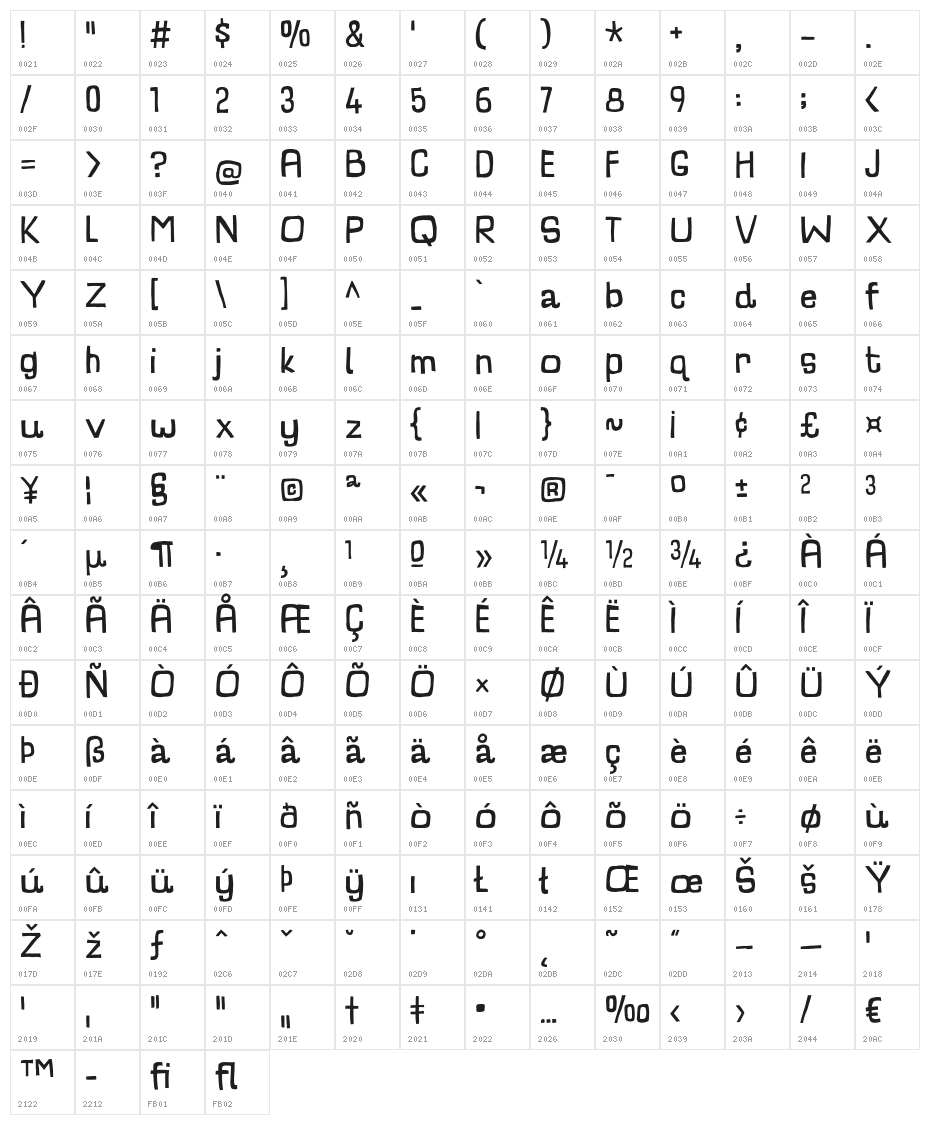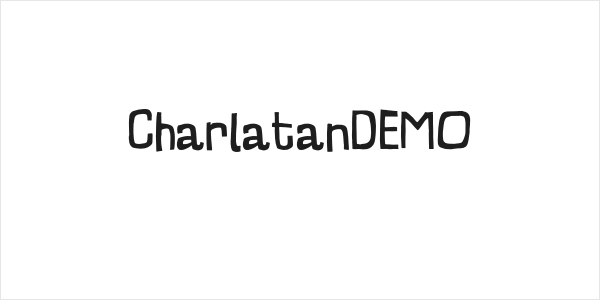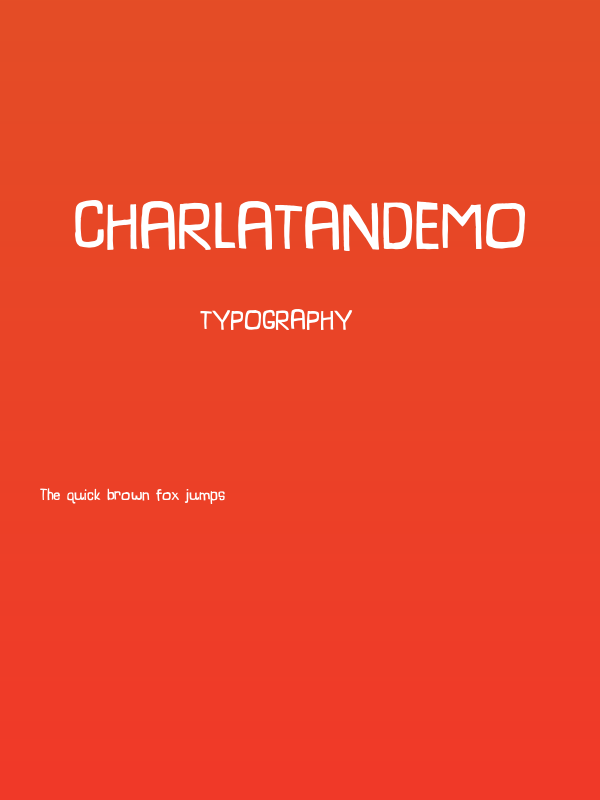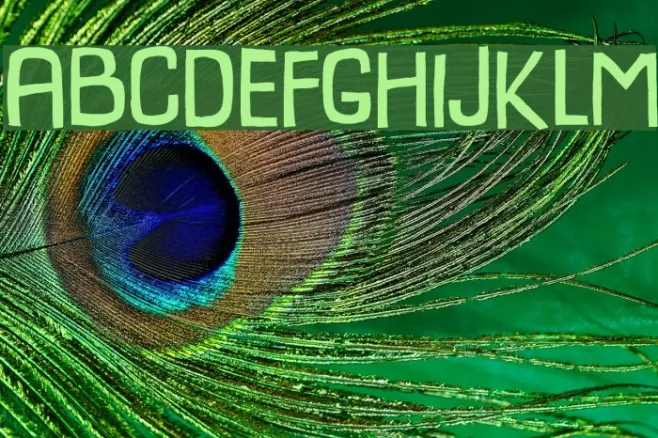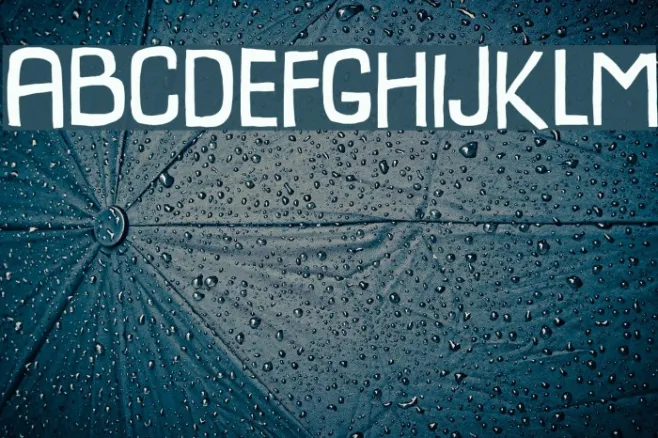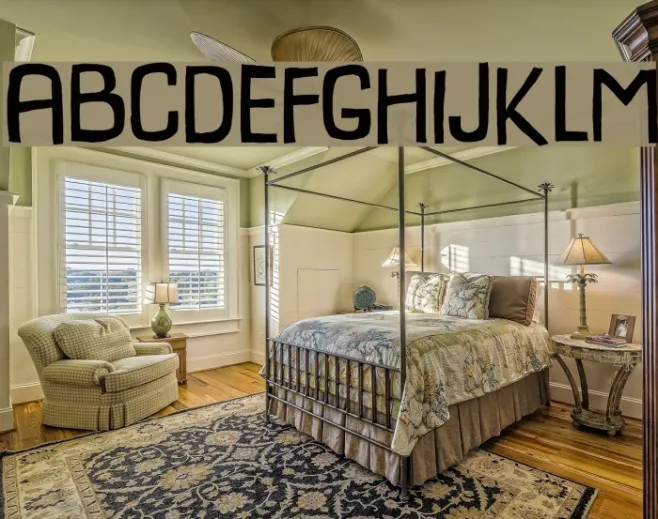
CharlatanDEMO Font
CharlatanDEMO Description
This font features a playful and slightly irregular design, characterized by its hand-drawn appearance. The uppercase letters are bold and have a quirky, uneven stroke that adds a sense of whimsy and creativity. The lowercase letters maintain the same playful style, with rounded edges and a slightly exaggerated form. The numerals are consistent with the overall style, offering a unique and artistic flair. Special characters are included, maintaining the font's distinctive look. This font is ideal for projects that require a fun and informal touch, such as children's books, creative posters, or playful branding.
| Overall Style | Playful, Artistic |
| Proposed Projects | Children's books, creative posters, playful branding, informal invitations. |